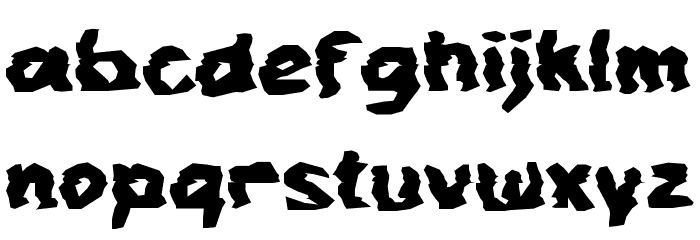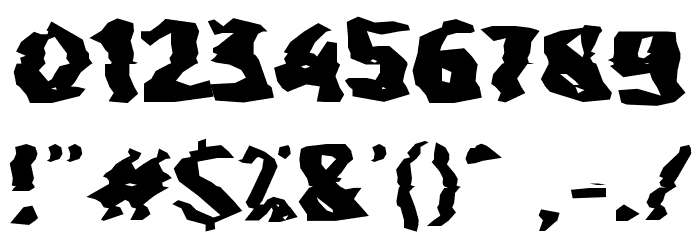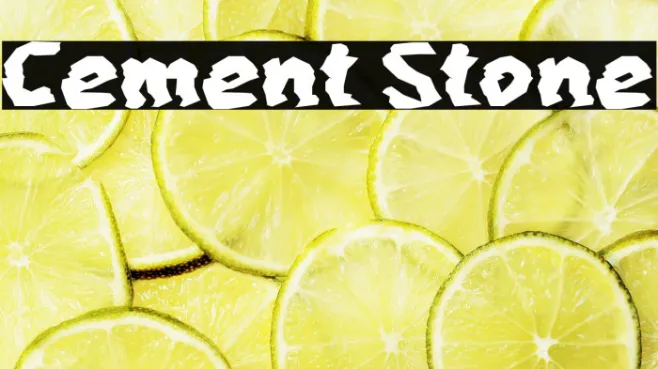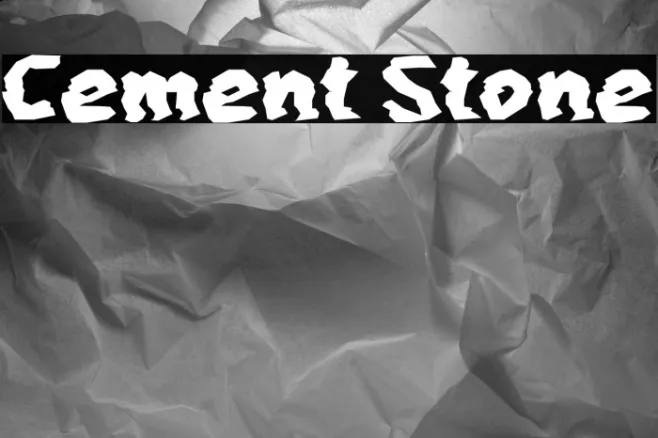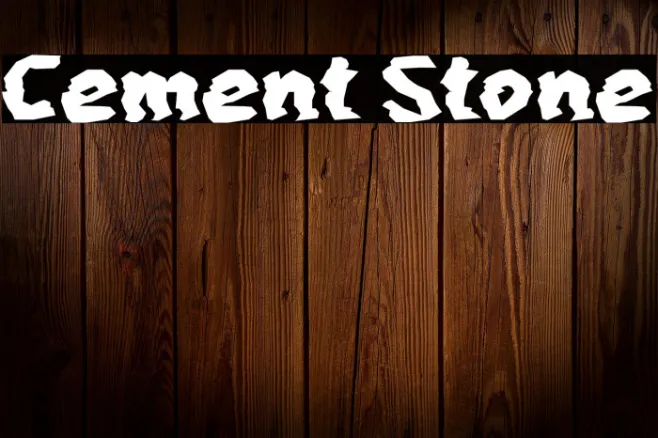
Cement Stone Font
This font features a rugged, textured appearance reminiscent of chiseled stone or concrete. The characters are bold and irregular, with jagged edges that give a sense of strength and durability. Each letterform appears as if it has been carved from a solid block, providing a three-dimensional effect that adds depth and interest. The uppercase and lowercase letters maintain a consistent style, with the numbers and special characters following suit. This font's unique design makes it stand out, perfect for projects that require a bold, impactful statement.
A rugged, stone-like font with bold, jagged edges and a three-dimensional effect.
- Proposed Projects: Ideal for use in construction-themed designs, video game graphics, posters, and branding materials that require a strong, impactful look.